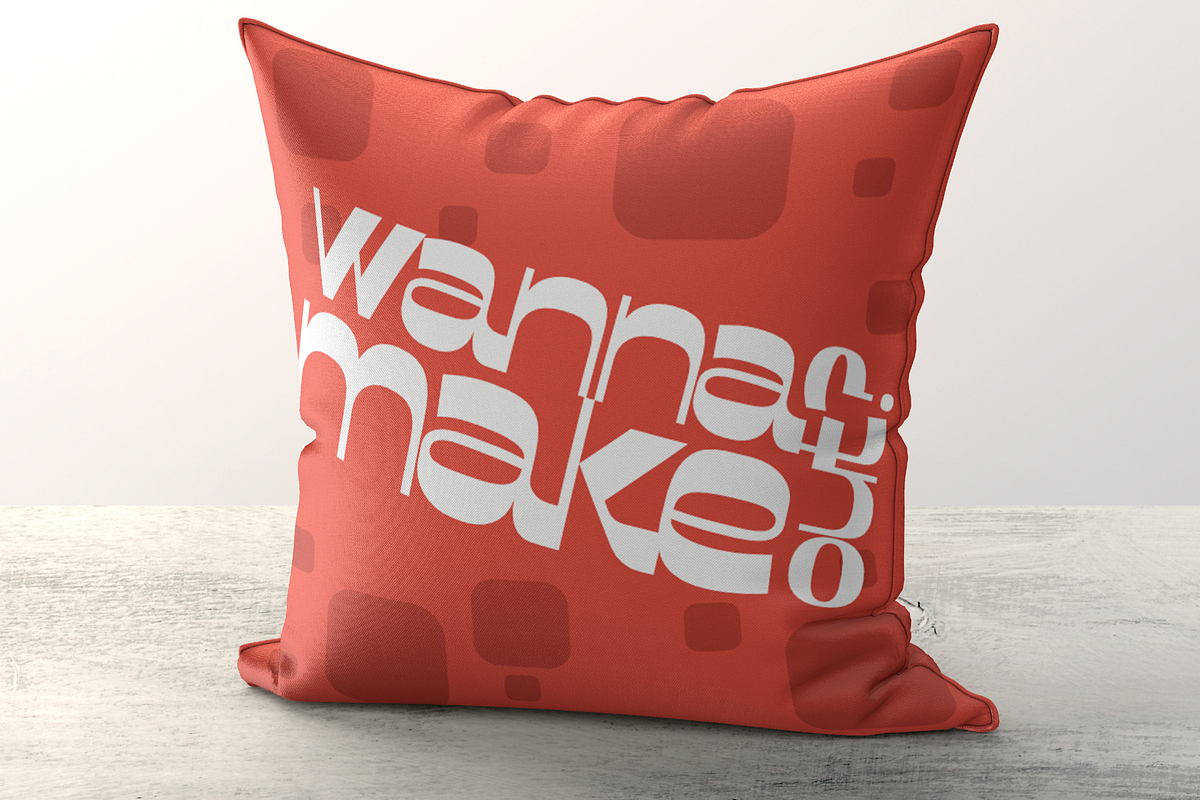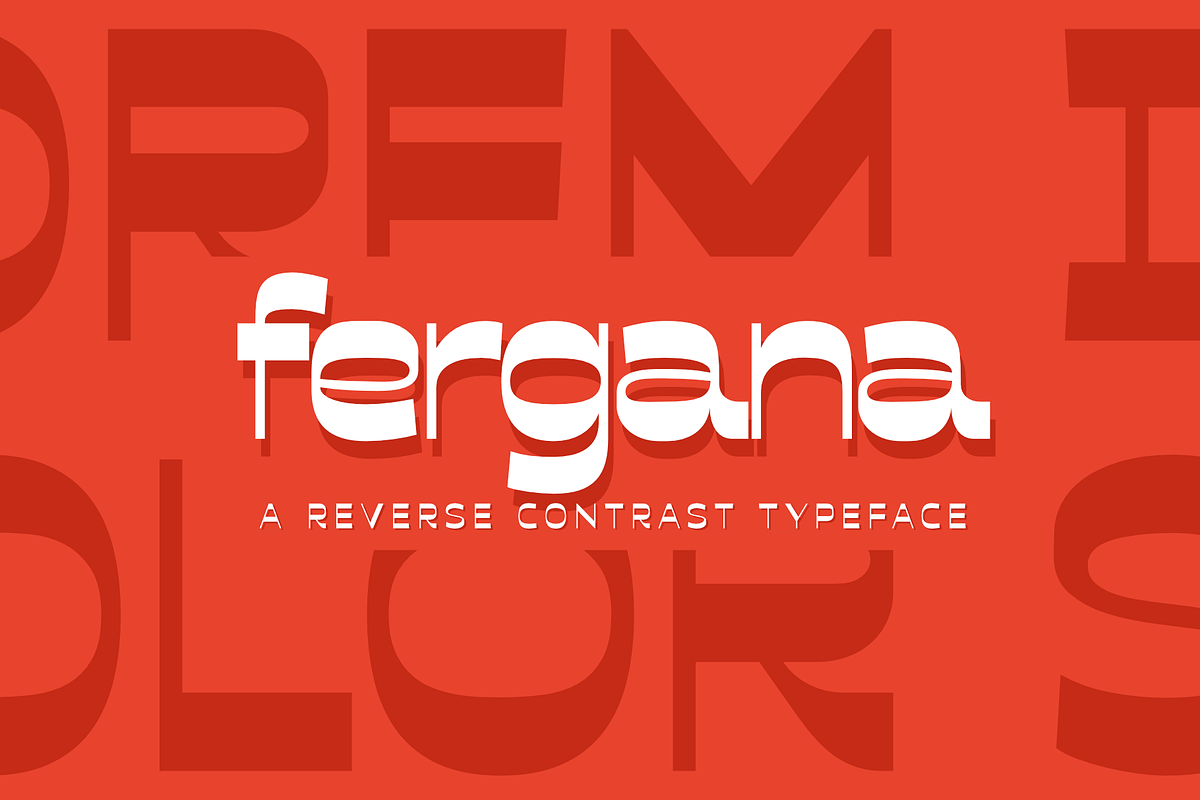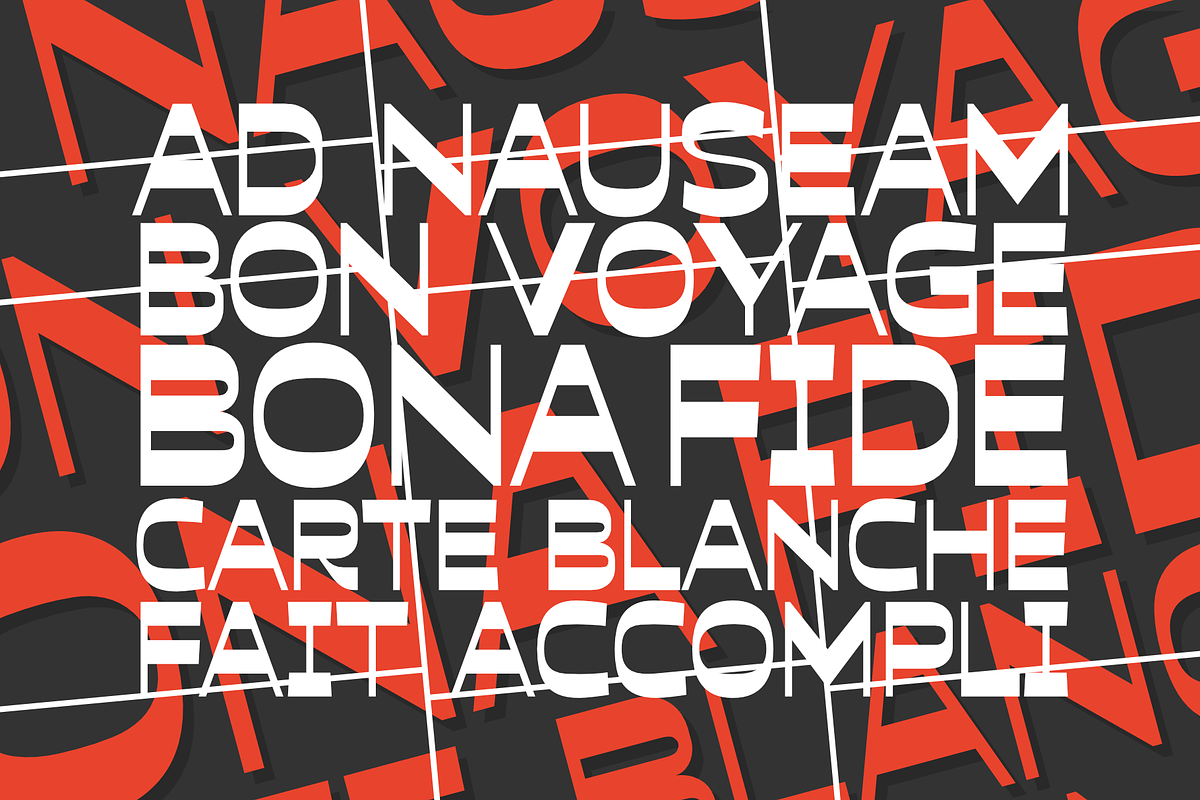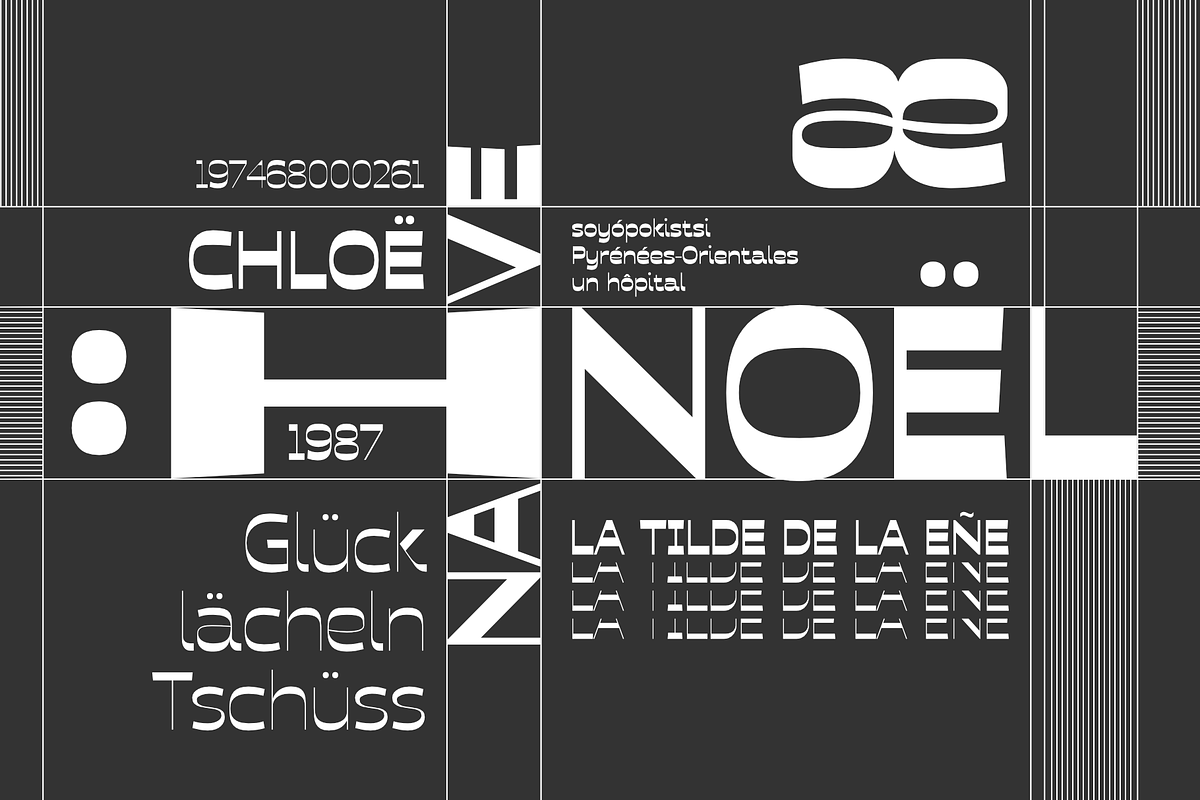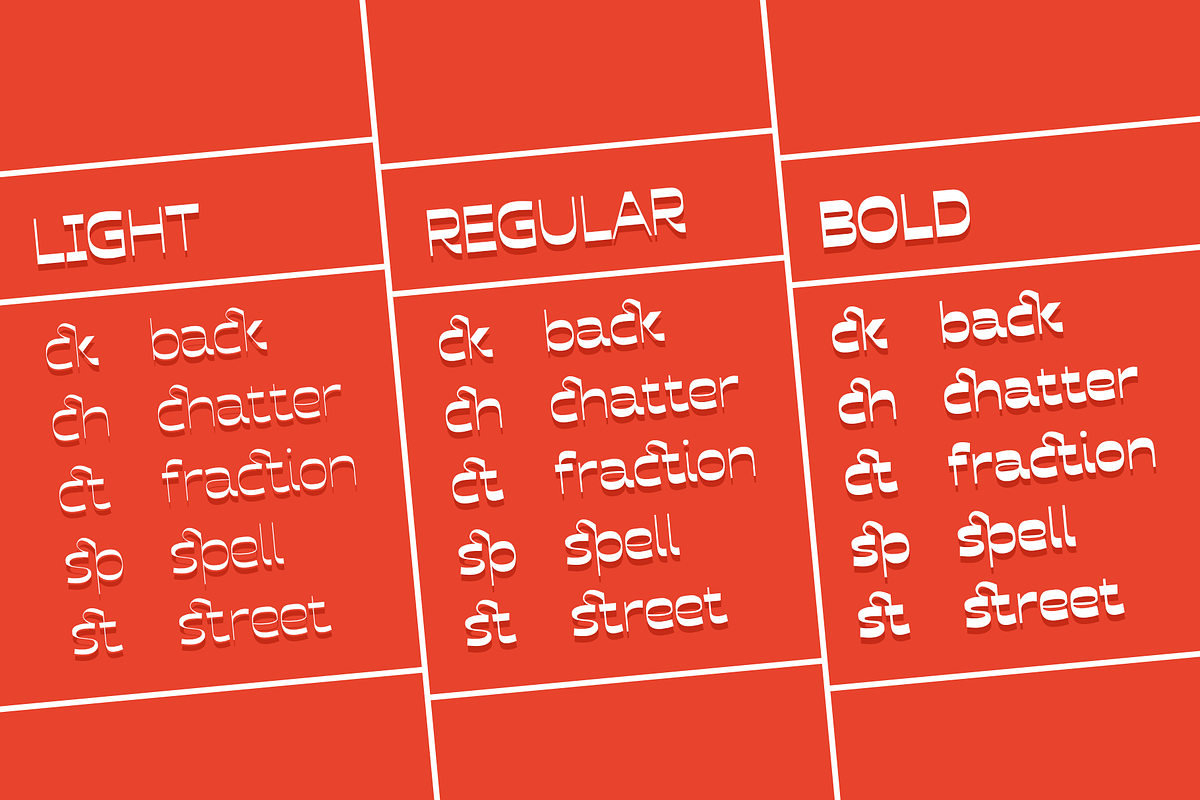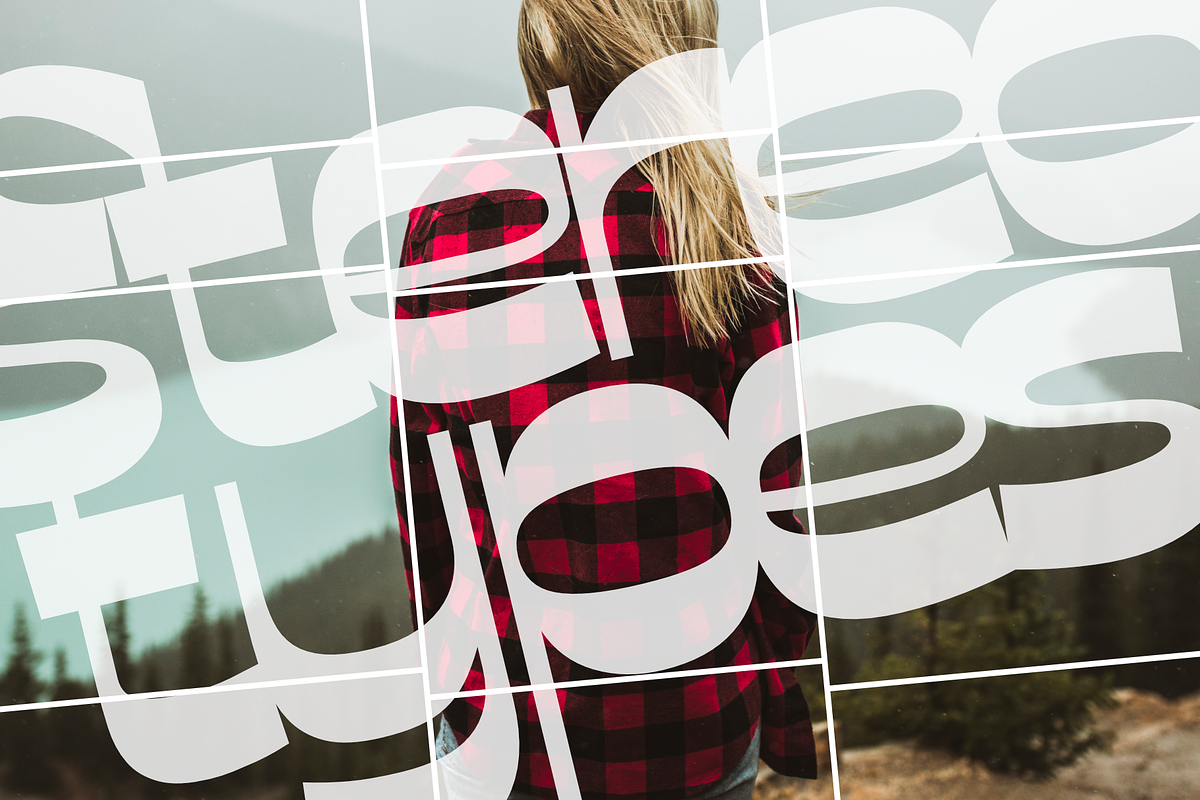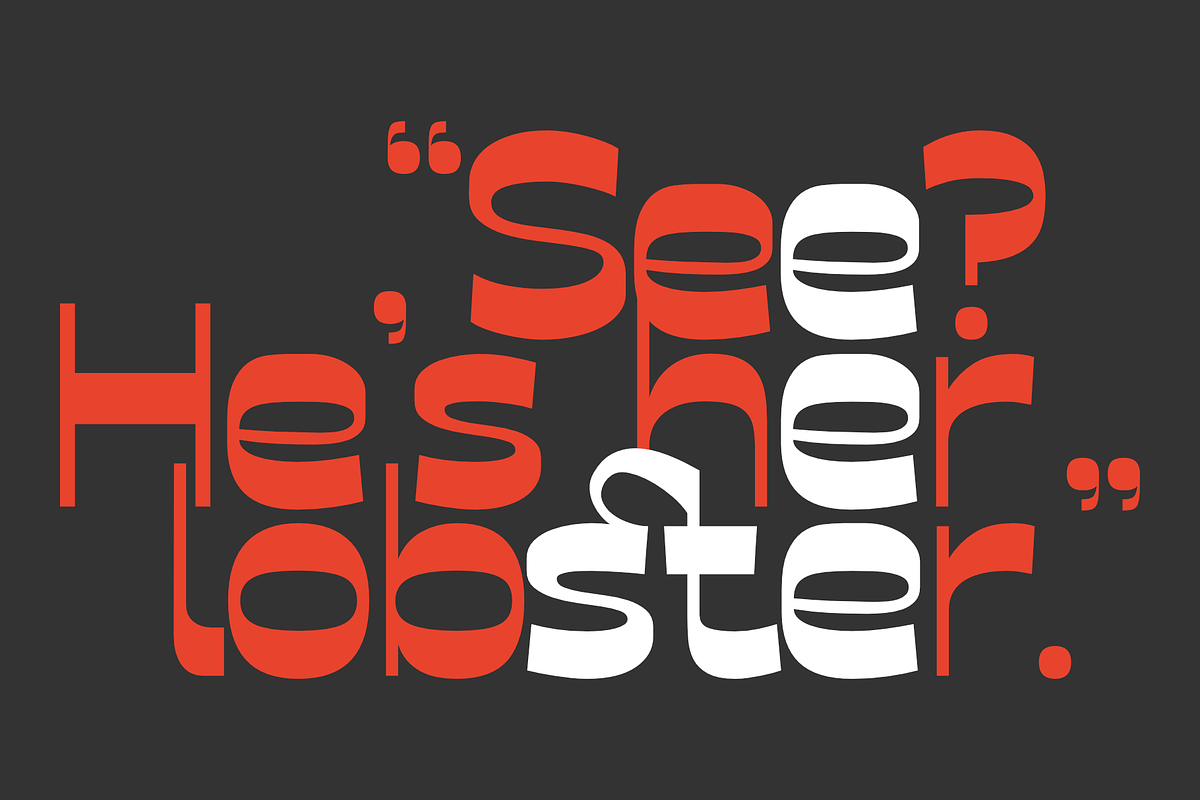
Fergana
Fergana is a square display sans-serif typeface with an inverted or reverse contrast. It uses a very high contrast to be as loud, bold and noticeable as possible. Fergana is a powerful option at large sizes for use on headings, posters, billboards, magazines, advertisements, from casual to hipster.